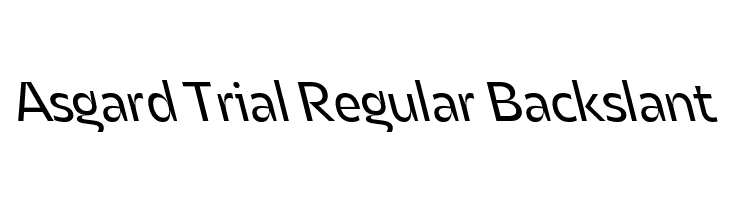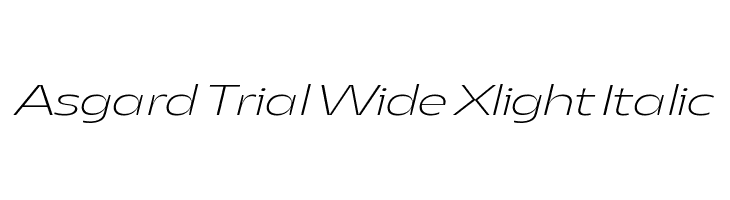
A modern, backslant font with clean lines and dynamic style.
A modern, minimalist font with thin, clean lines and balanced spacing.
A thin, backslanted font with a modern and elegant style.
A sleek, thin, and italicized font with a modern and elegant style.
A bold, wide font with a modern geometric style.
A bold, wide font with a dynamic backslant, perfect for impactful designs.
A bold, wide typeface with thick strokes and a modern, impactful style.
A bold, wide font with a unique backslant, perfect for impactful headlines.
A bold, wide, and italicized font with a modern and dynamic style.
A modern, wide, and light geometric font with clean lines.